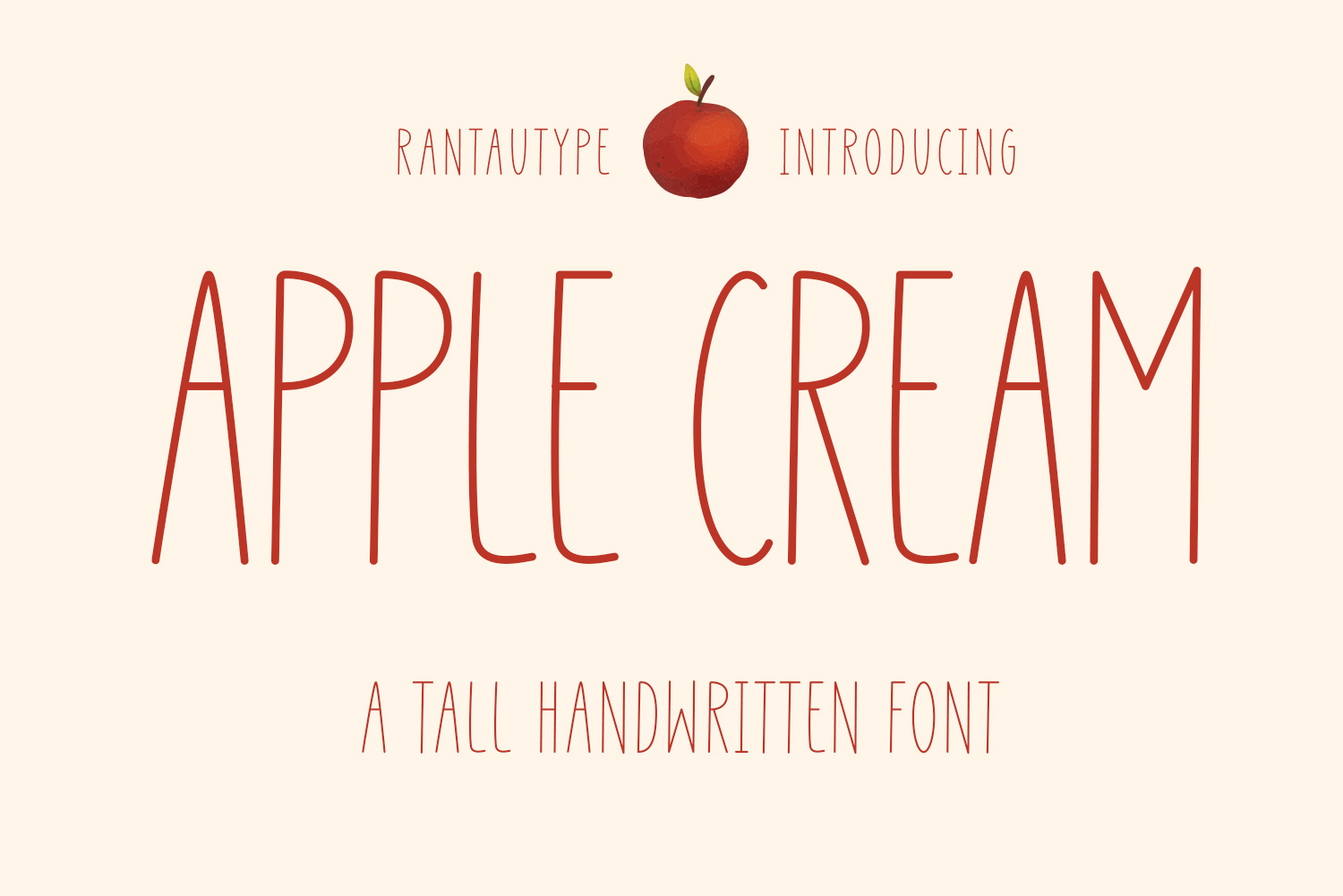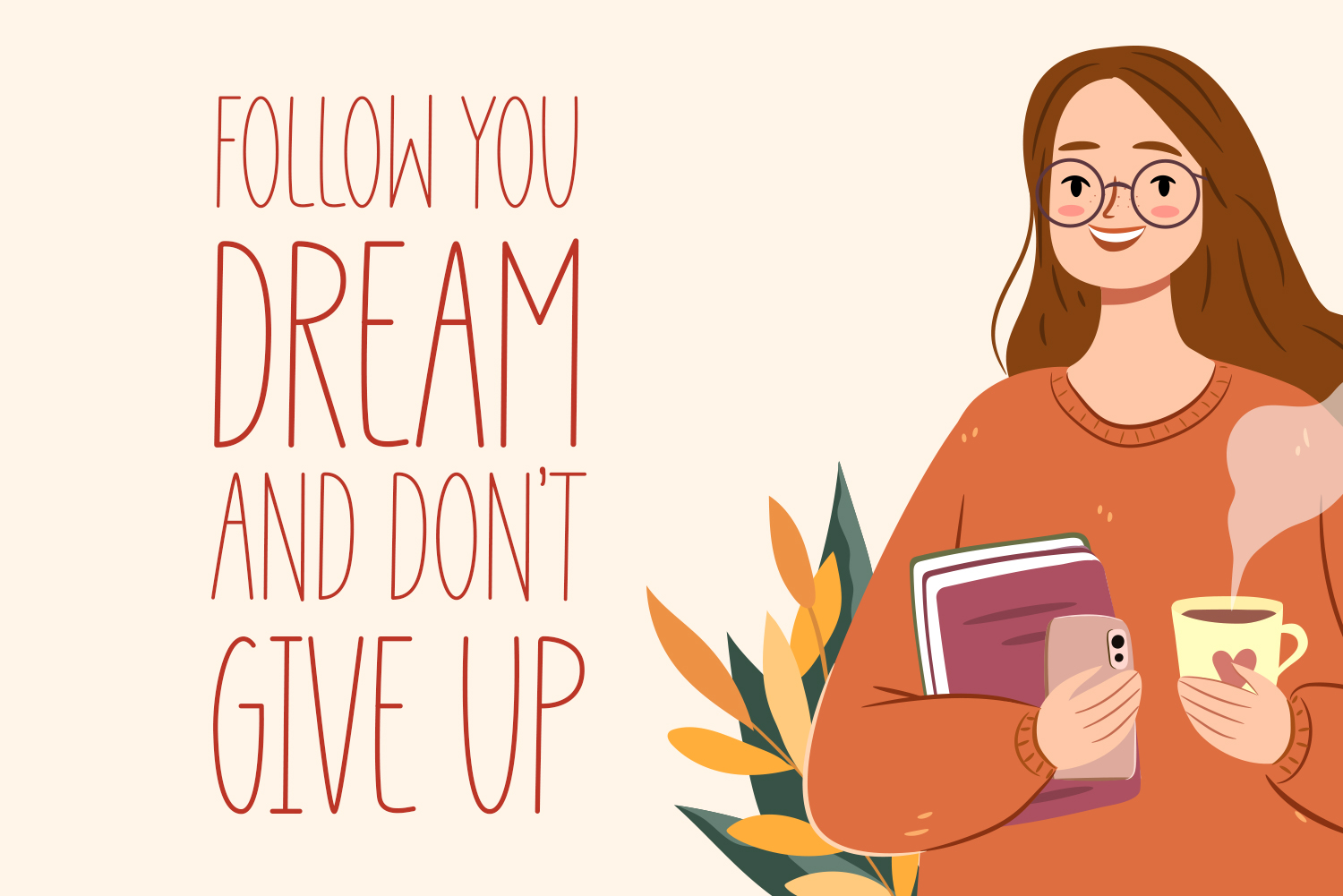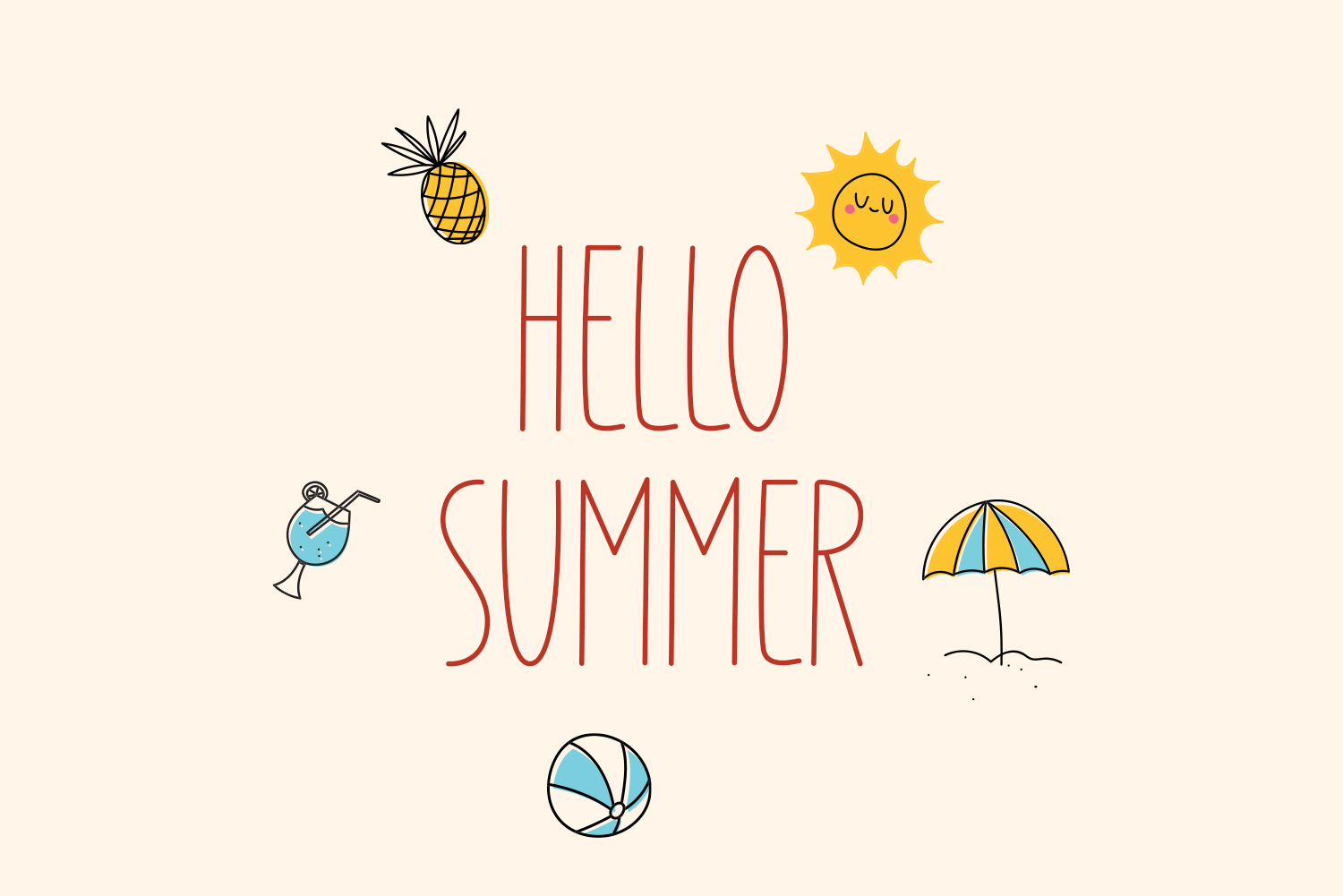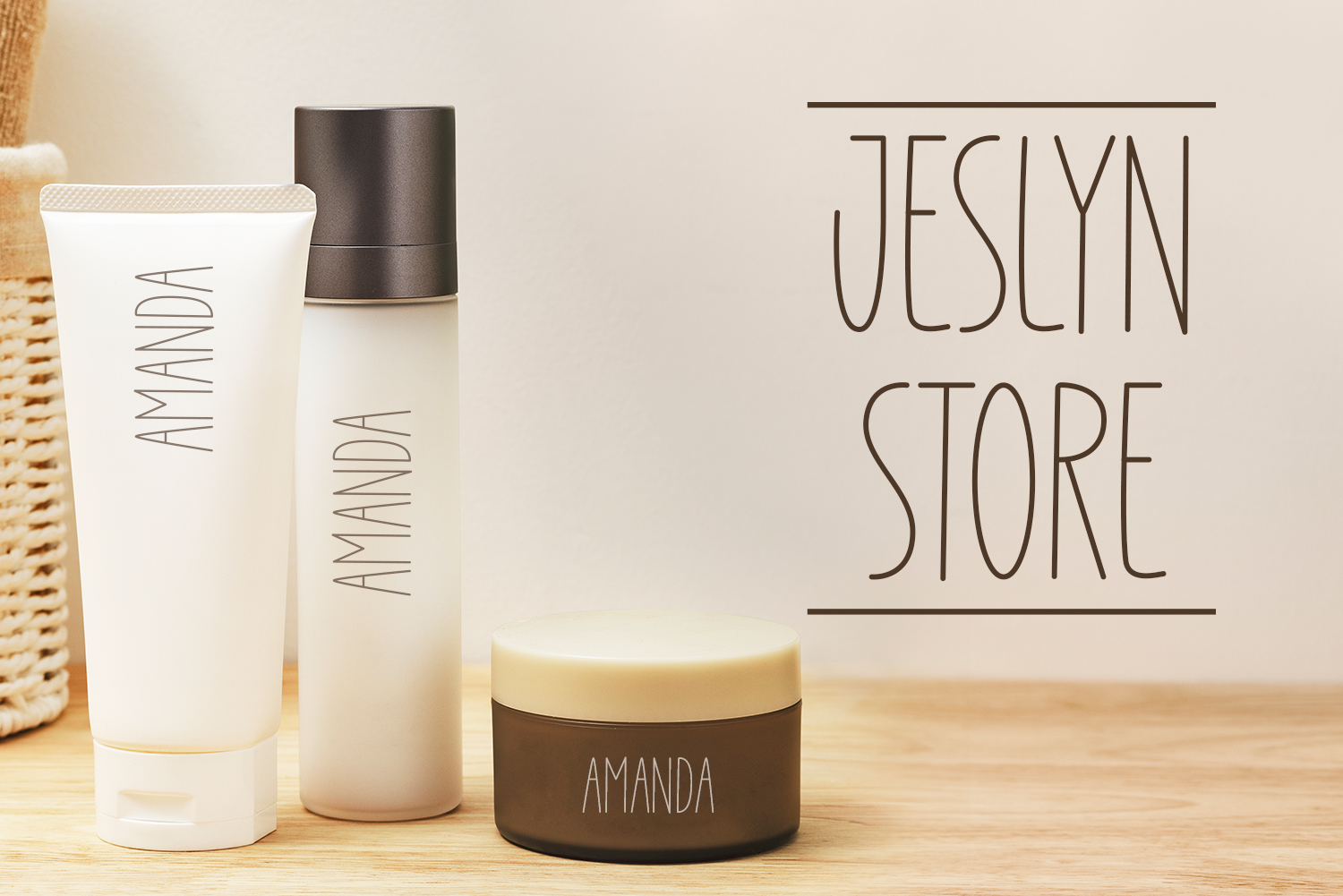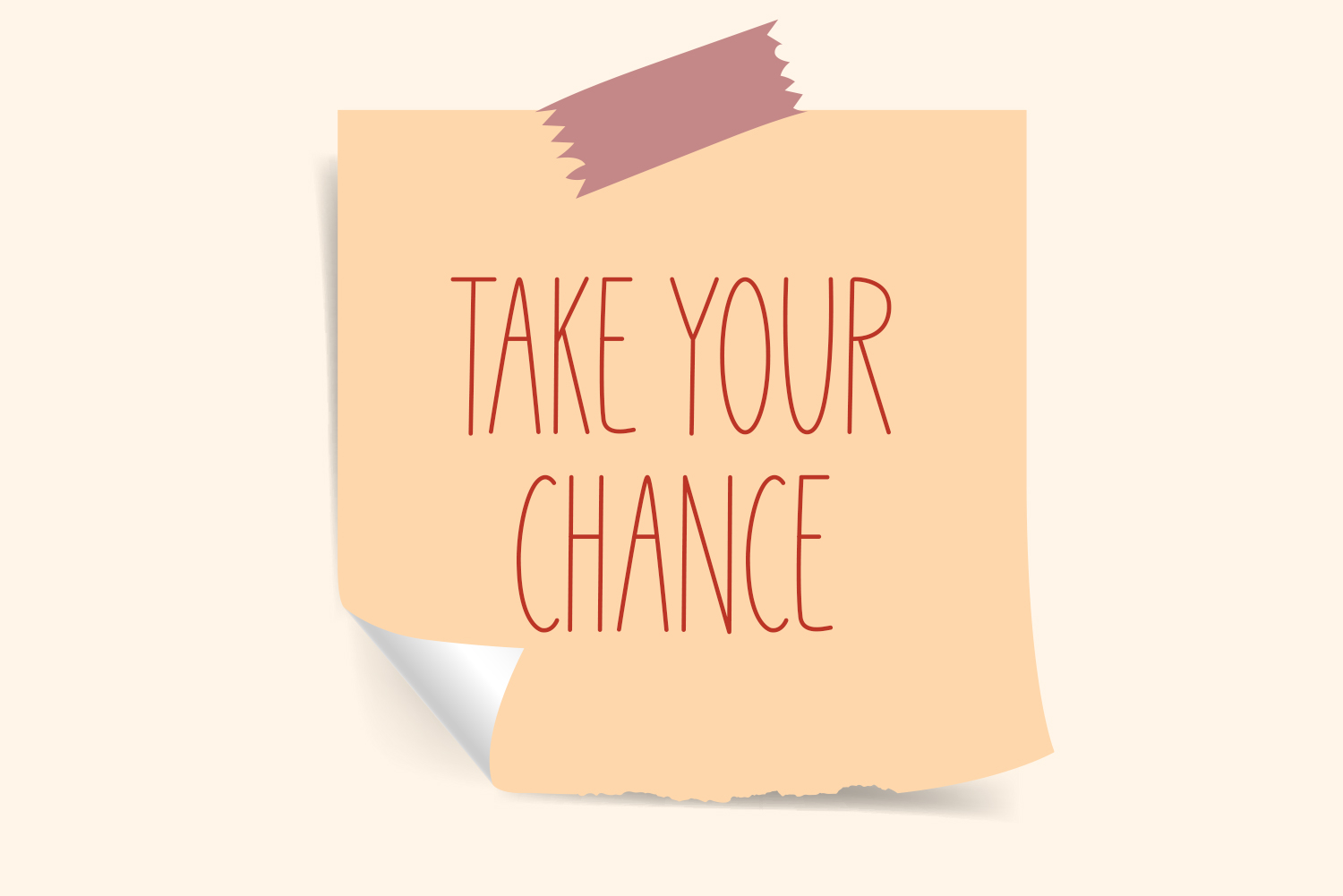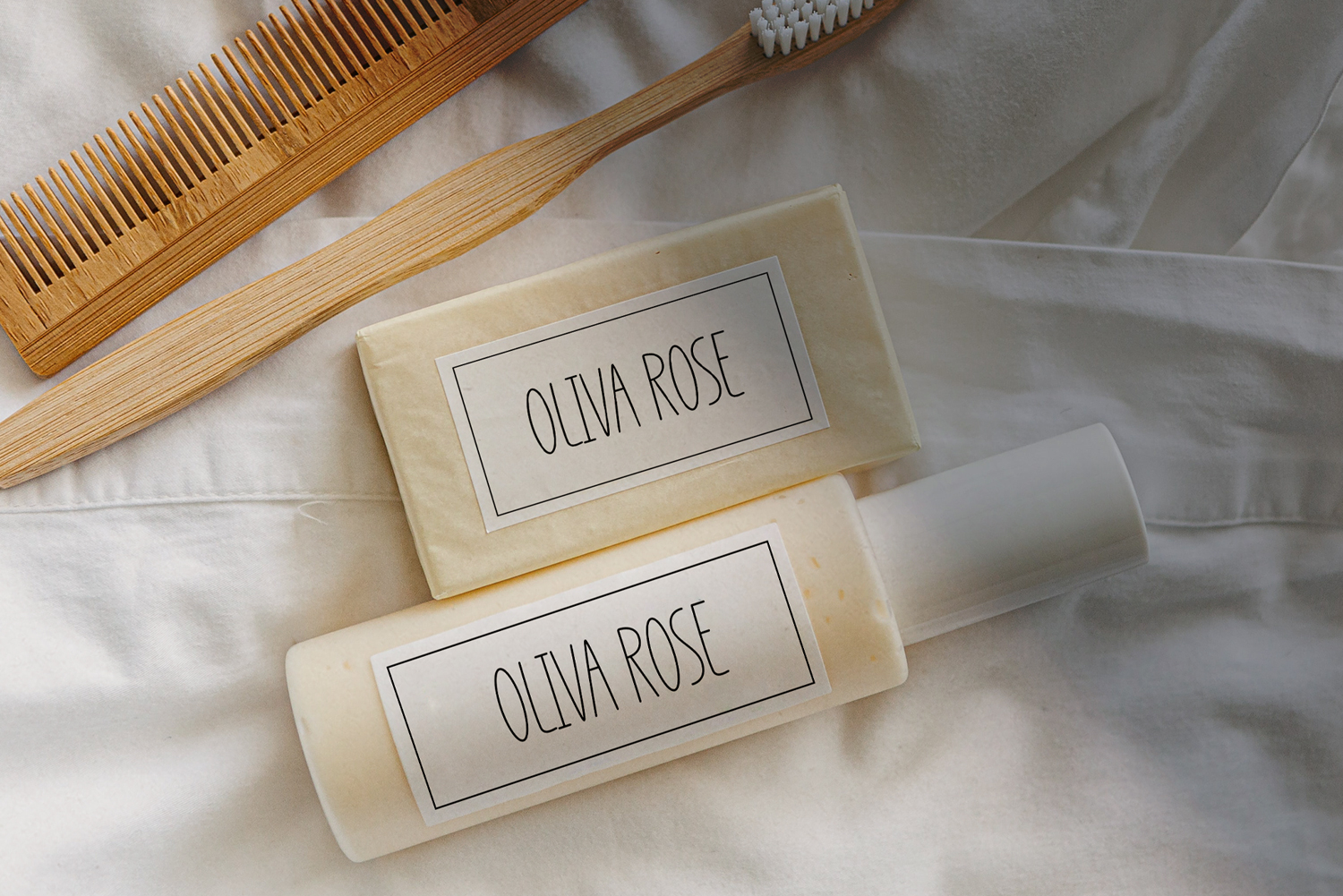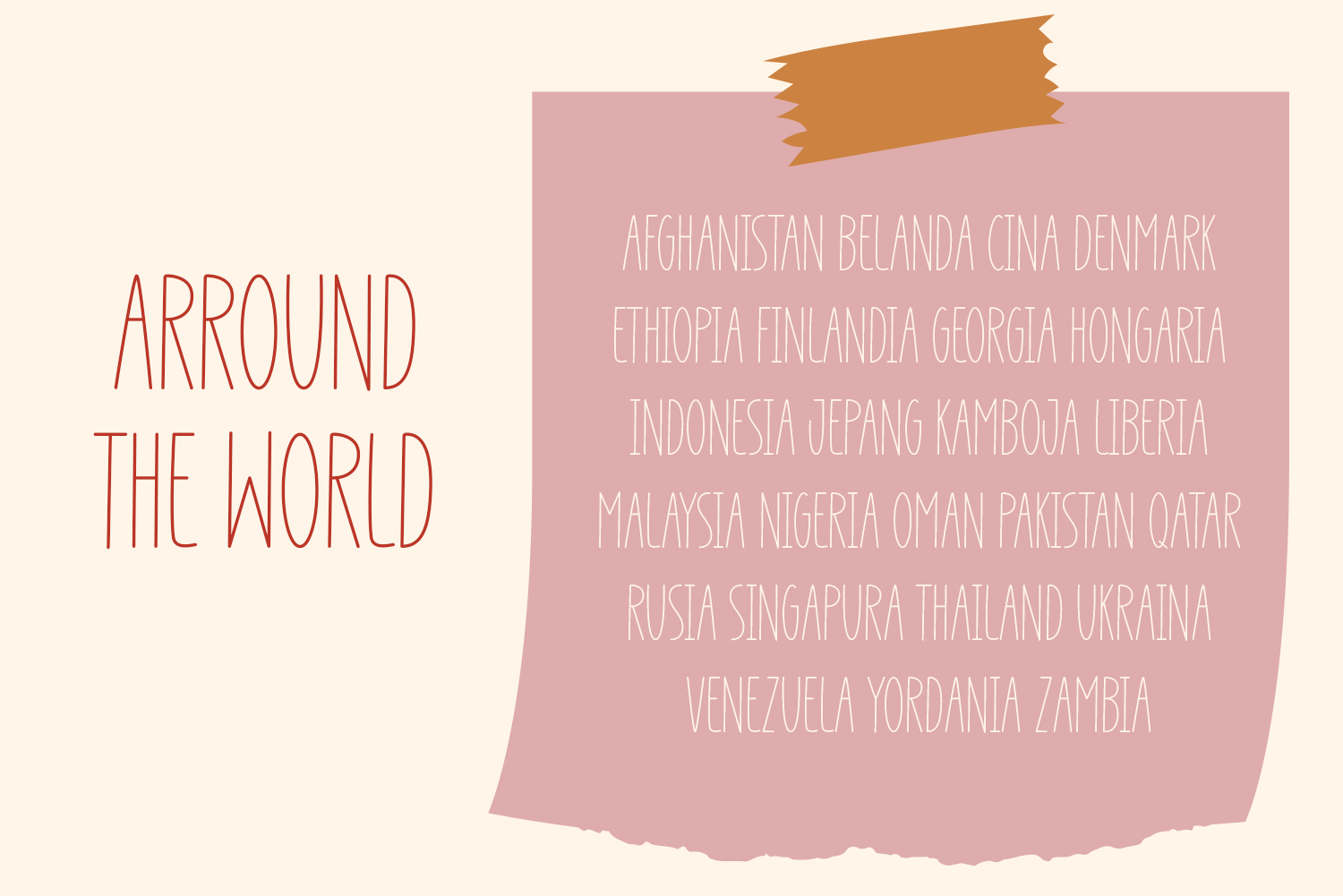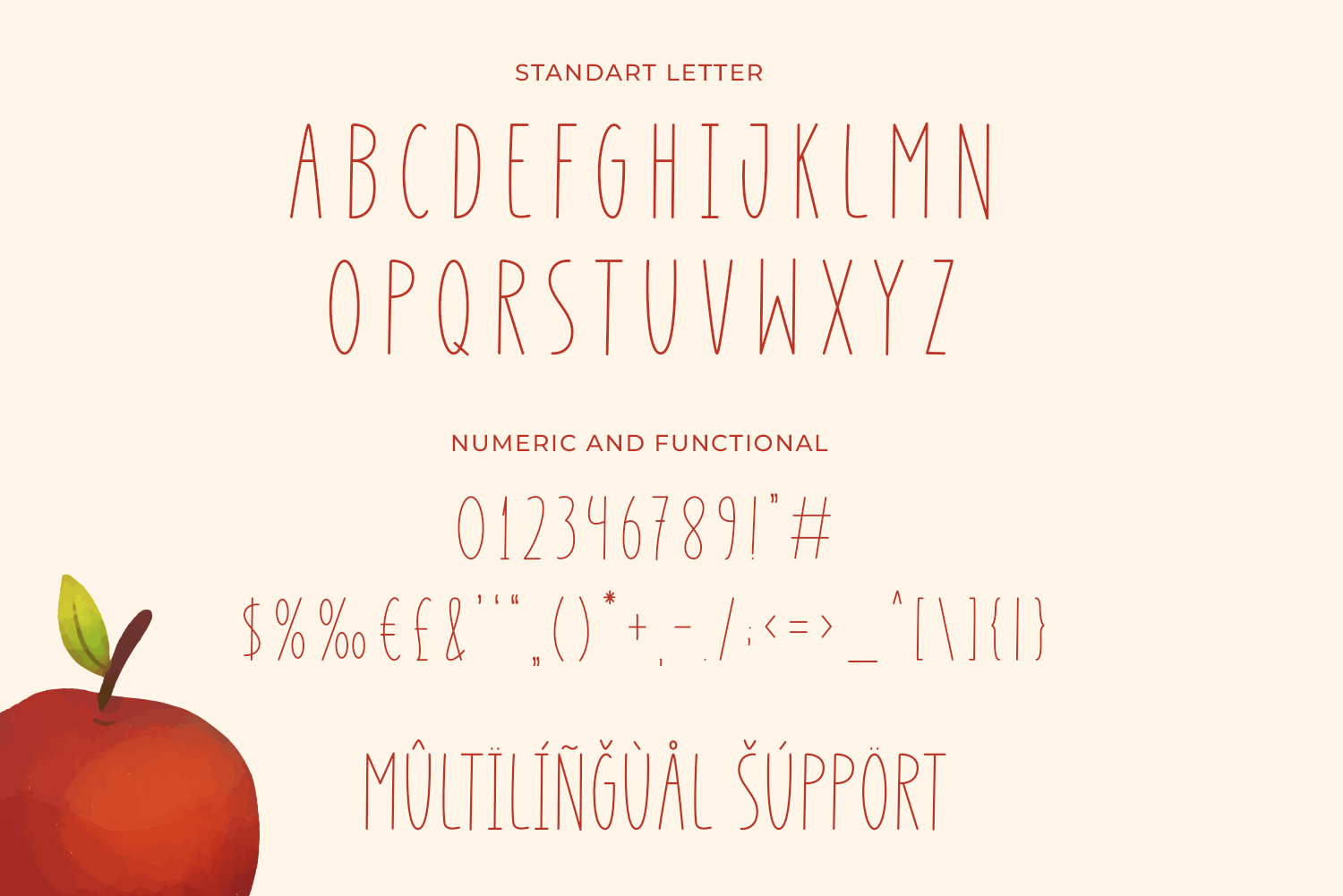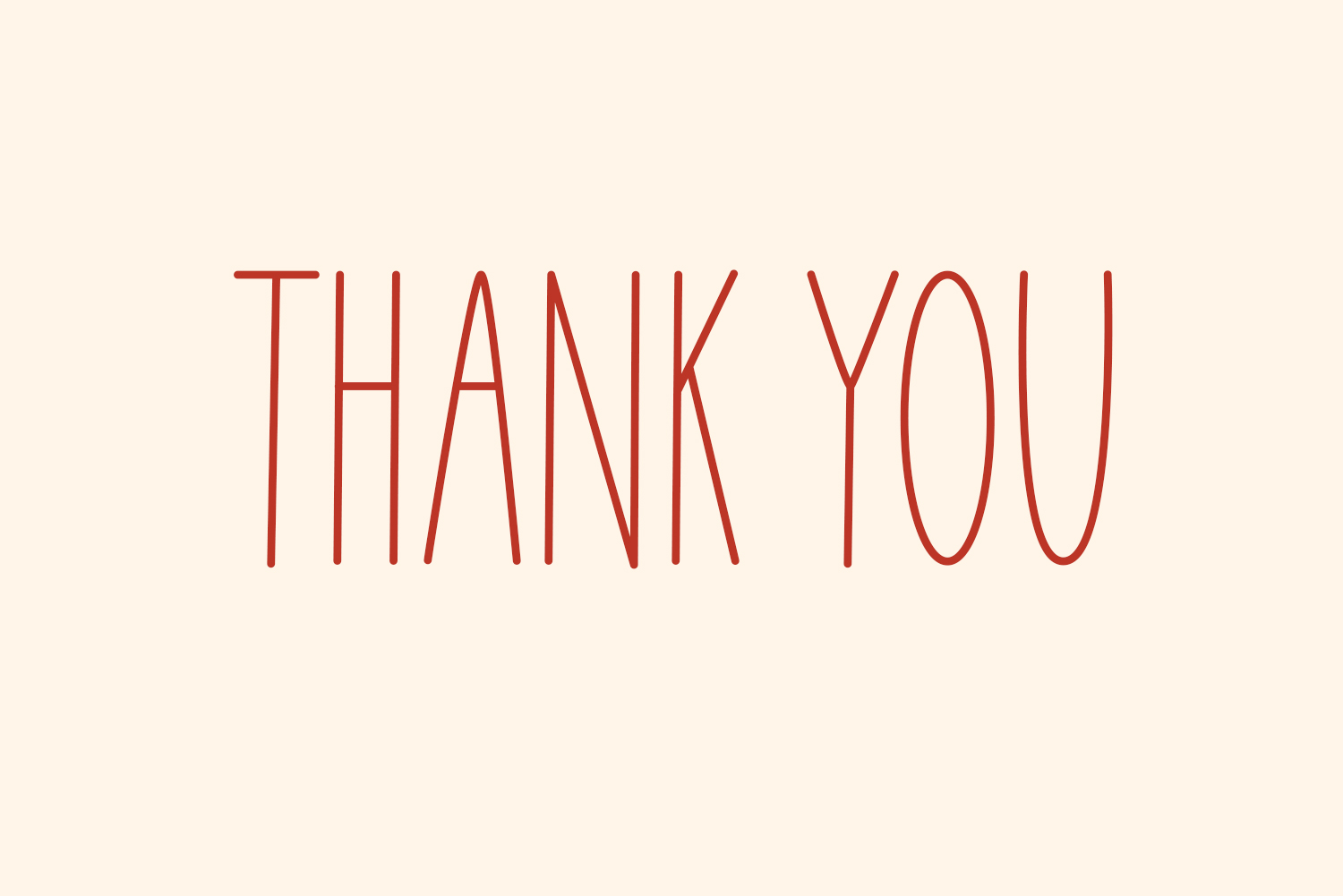
Apple Cream is playful display fontĀ . Apple cream look tall, modern and joyful. This font suitable for logos, packaging designs, posters, business card, cover, broadcast, quotes, books, etc. Let’s we go, to make you business go to next level with Apple Cream.